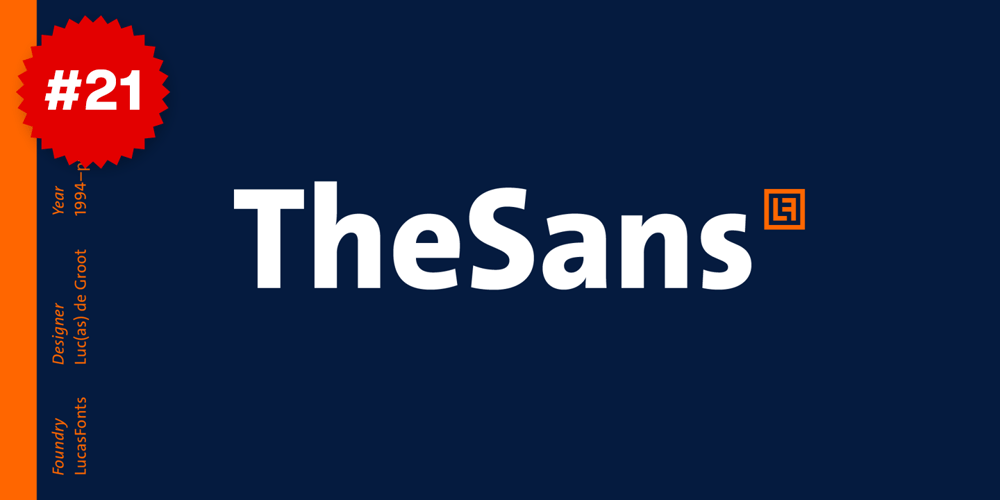
TheSans
TheSans font
TheSans Font Family was designed by Luc(as) de Groot and published by LucasFonts. TheSans contains 76 styles and family package options. TheSans is a modern classic. A favourite for corporate design, editorial design and new media, it comes in an astounding range of widths and weights, including a large set of hairline fonts.